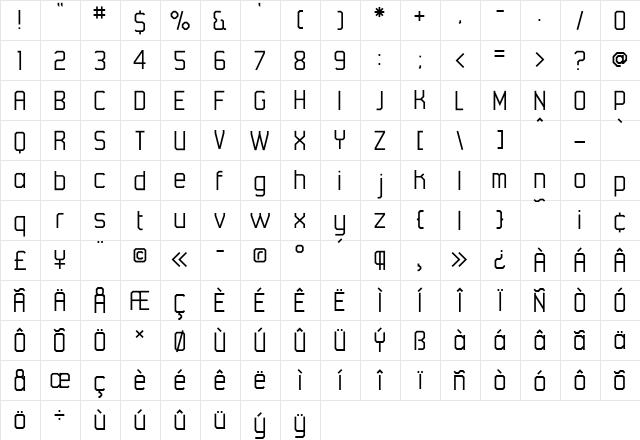
45Degrees Regular Font Preview
45Degrees Regular
45Degrees Regular Font Details
Design Context for 45Degrees Typeface
45Degrees offers clean, dependable letterforms without strong stylistic allegiance, making it a practical choice for designers who need flexibility.